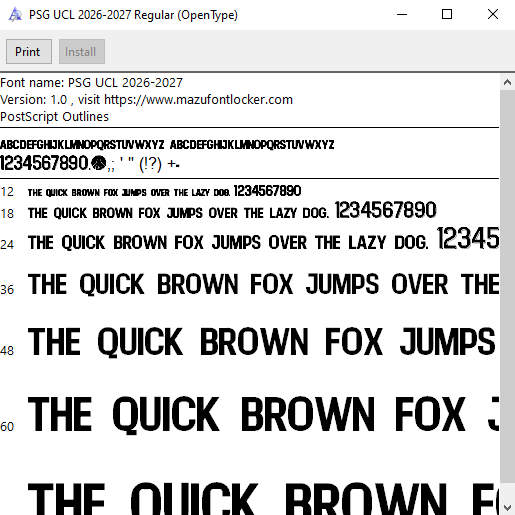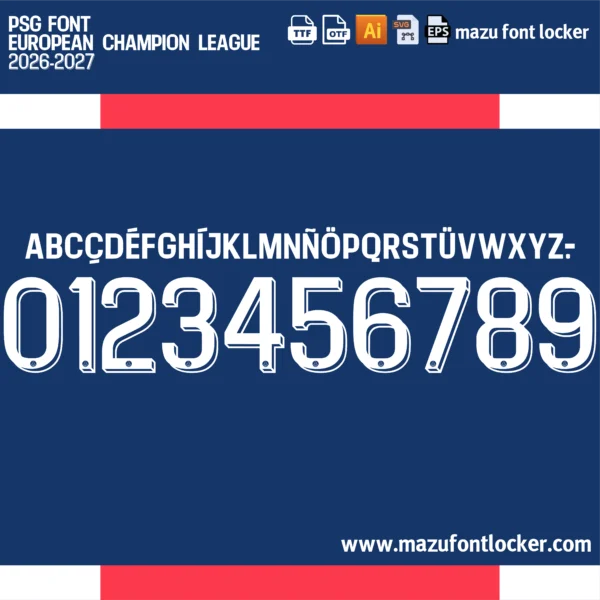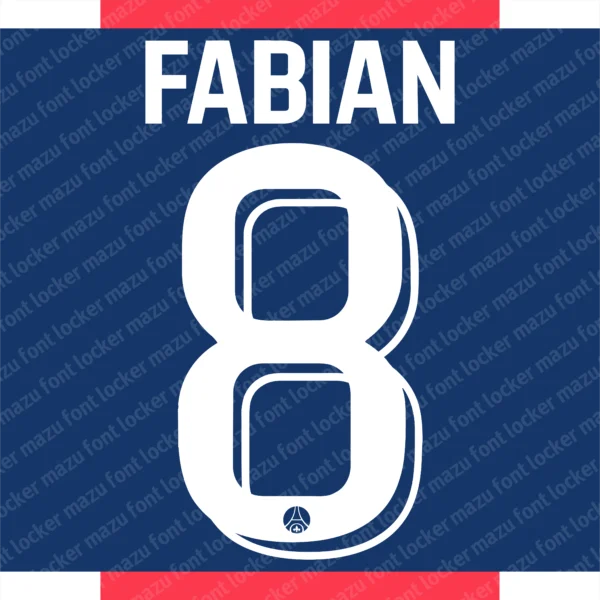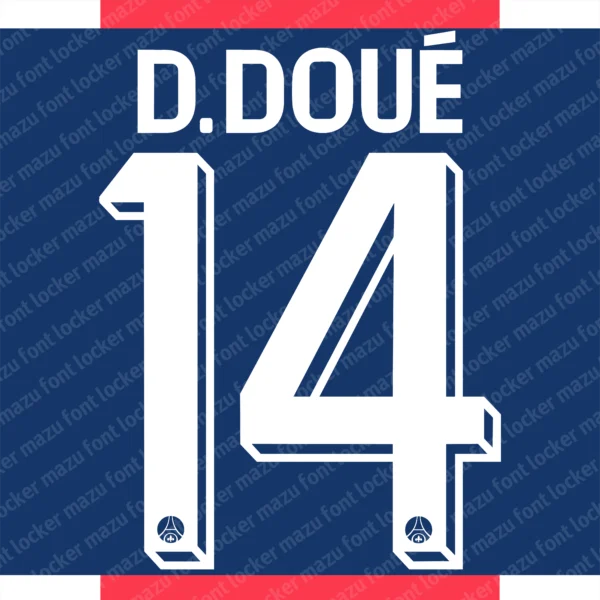
PSG UCL 2026-2027 Font Vector – Ultimate Paris Glory Masterpiece
This font captures the commanding, iconic, fearless, and ultra-premium lettering that perfectly embodies the club’s legendary Parisian elegance fused with unstoppable winning mentality, delivering unmatched passion, explosive energy, luxurious sophistication, and pure Champions League fire for premium jersey mockups, football designs, epic sports visuals, dominating fan creations, and elite branding projects.
PSG UCL 2026-2027 Font Vector – Authentic Paris Saint-Germain Typeface
The PSG UCL 2026-2027 Font Vector is a premium typeface that accurately recreates the official match lettering worn by Paris Saint-Germain during the 2026-2027 UEFA Champions League campaign. This high-quality vector font kit captures the sleek, modern, and luxurious typography that represents the elegance, power, and Parisian flair of the club.
Designed for professional designers and passionate PSG fans, the PSG UCL 2026-2027 Font Vector delivers perfect authenticity for creating realistic jersey mockups, fan merchandise, matchday posters, social media graphics, and European football content. It pairs beautifully with the iconic navy blue and red home kit featuring the famous PSG crest.
This font stands out because of its sharp vector precision and strong club identity. Every letter and number is crafted to match the exact style used on the players’ shirts during the 2026-2027 Champions League campaign. Whether you are making realistic kit templates or exciting PSG content, the PSG UCL 2026-2027 Font Vector gives your designs that authentic Parisian look.
The letterforms in the PSG UCL 2026-2027 Font Vector are tall, bold, and highly readable. The strokes have a strong, clean weight with excellent edge definition that looks powerful on the back of jerseys while maintaining classic Parisian elegance and modern luxury.
• Full uppercase A–Z and numbers 0–9 in authentic PSG UCL 2026-2027 style
• Special PSG crest glyph – Press the “:” (colon) symbol to insert the PSG logo
The PSG UCL 2026-2027 Font Vector is an independently designed typeface package. It is carefully crafted to replicate the official shirt lettering style of the 2026-2027 Champions League season. This font kit is perfect for creative projects, fan edits, nostalgic jersey designs, and custom football graphics.